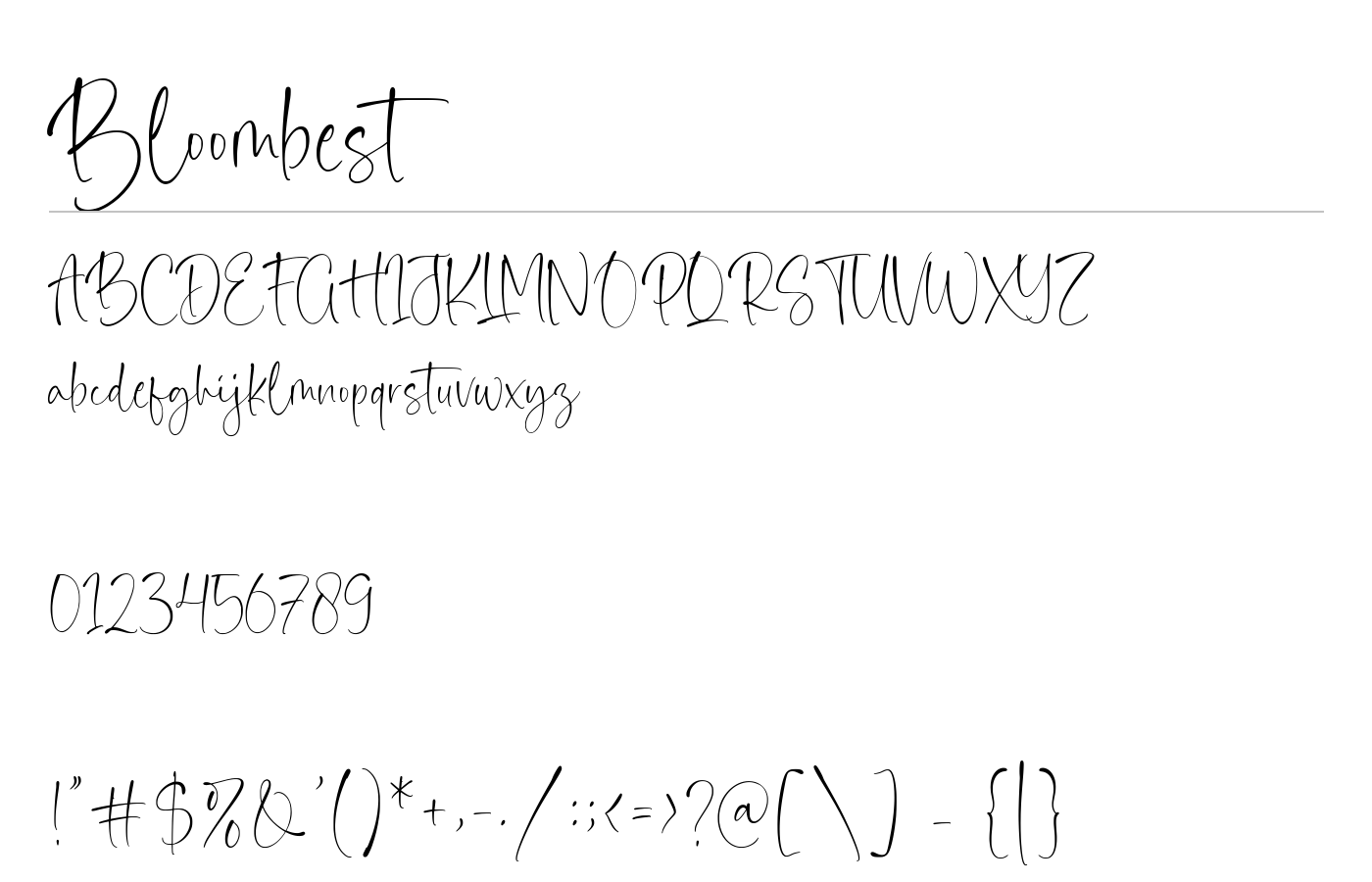
Bloombest is a delicate and elegant handwritten script font with thin, flowing strokes that convey a natural, whimsical charm. Its lightweight, airy letterforms and unique, slightly playful character make it ideal for creative branding, invitations, and feminine designs that seek a personal, artistic touch. This font works beautifully in headlines and decorative text where a graceful, stylish vibe is desired.
Bloombest Font
About Bloombest Font